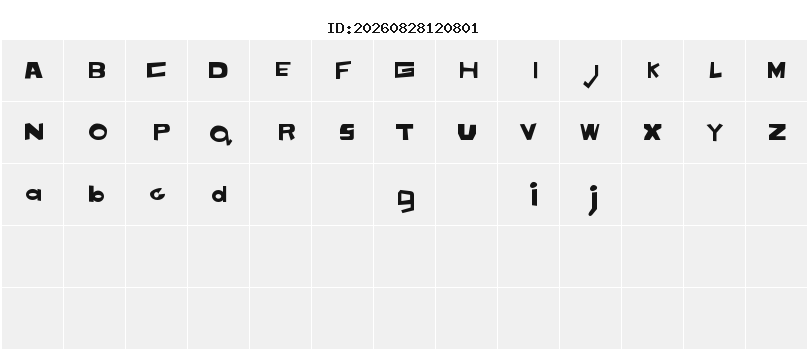
Toon-Time Narrow Preview
• Font Name: Toon-Time Narrow
• Full Font Name: Toon-Time Narrow
• Character Count: 63
About Toon-Time Narrow.ttf
Toon-Time Narrow.ttf is a modern, elegant sans-serif font designed for ultimate readability and visual harmony. Perfect for branding, headlines, web design, and print materials.